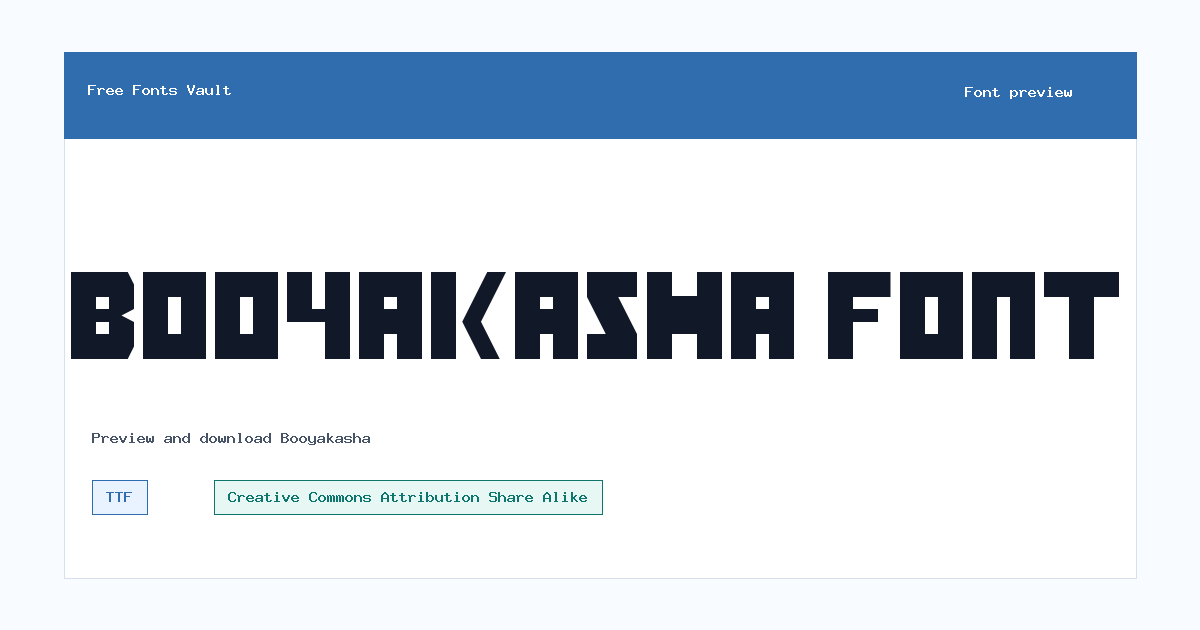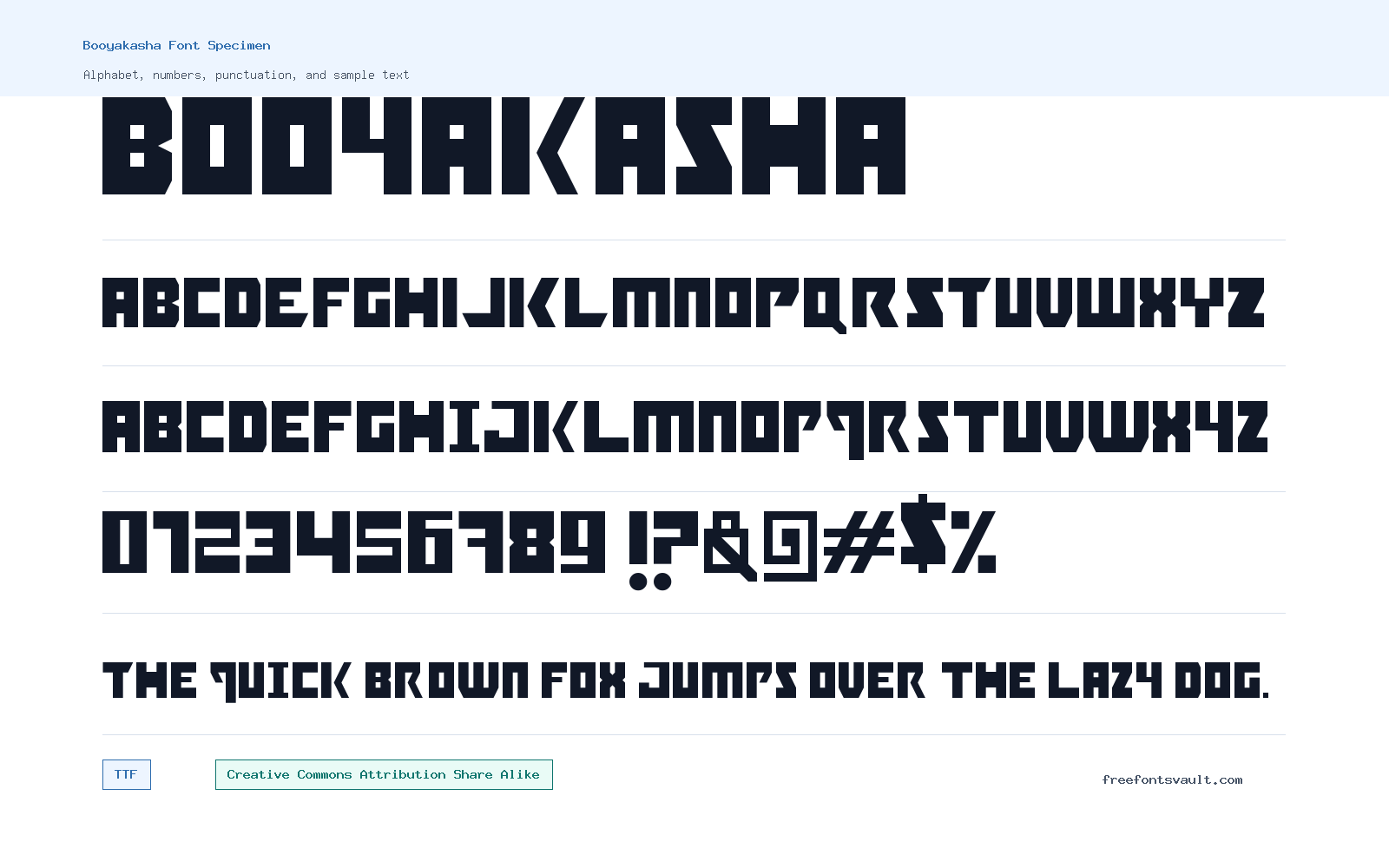
Booyakasha
Booyakasha is a squarish constructed display face with a strong, compact silhouette. This catalog page reviews the exact local asset and connects it to the recorded FontStruct project and Creative Commons license terms. Use the preview with your own words before deciding on a poster title, game graphic, or bold thumbnail line, because the blocky shapes can change dramatically when letters repeat or a phrase becomes too long.
How Booyakasha reads
The design relies on sharp corners, segmented strokes, and a wide visual footprint. Those traits create a graphic, built quality that reads best when the line is short and contrast is high. Test letters with diagonals, rounded forms, and numbers in the actual message. If the shapes begin to merge, increase space or reduce the word count rather than adding another decorative effect.
Booyakasha suits a compact display role: an energetic headline, a badge, a game-adjacent graphic, or a cover image with a clear visual theme. Keep descriptive text in a more conventional companion typeface. The contrast between a specialized display face and a neutral information face makes the design easier to understand quickly.
Test an all-caps word, a number, and a short two-word line. Preview it on the intended background and at final thumbnail size. The best setting preserves the distinctive square construction while keeping the complete word immediately recognizable.
What kind of projects suit Booyakasha?
It is most useful for brief, high-energy display lettering such as covers, posters, and themed graphics.
Why should I keep the text short?
Its constructed shapes are strongest in a compact word or headline; long lines can become visually dense.